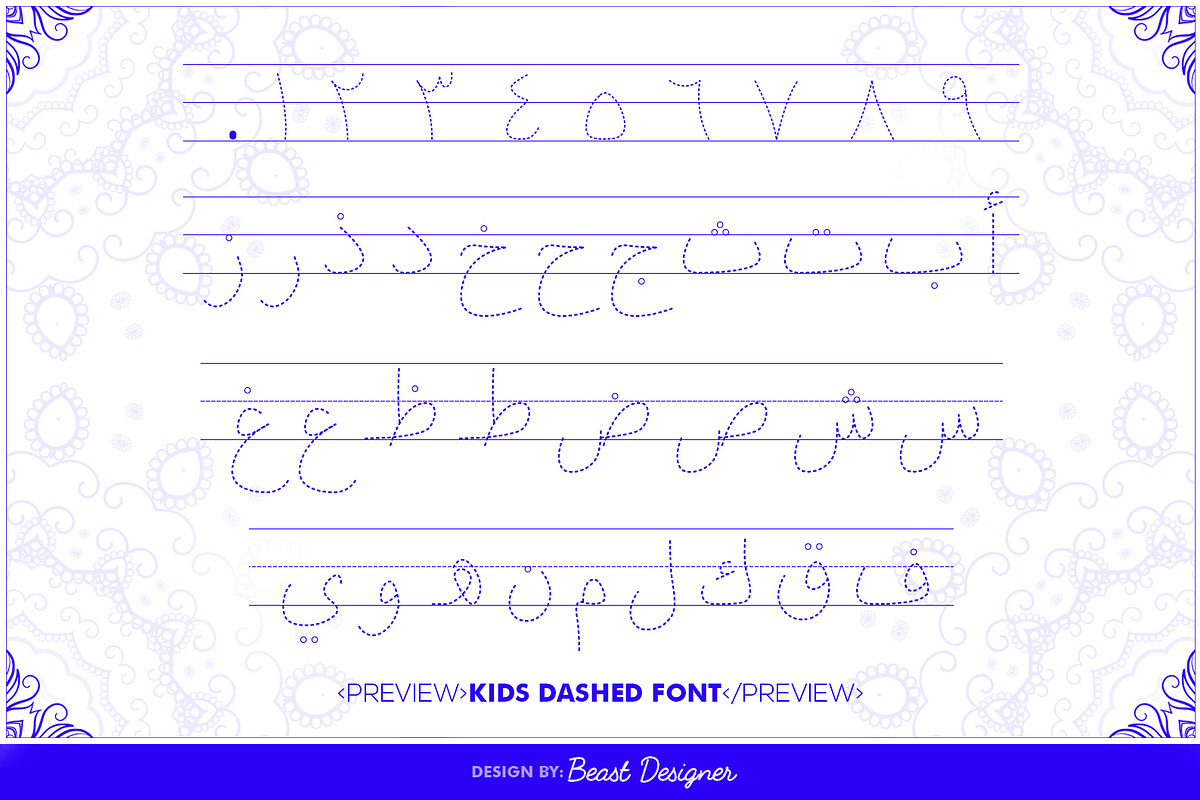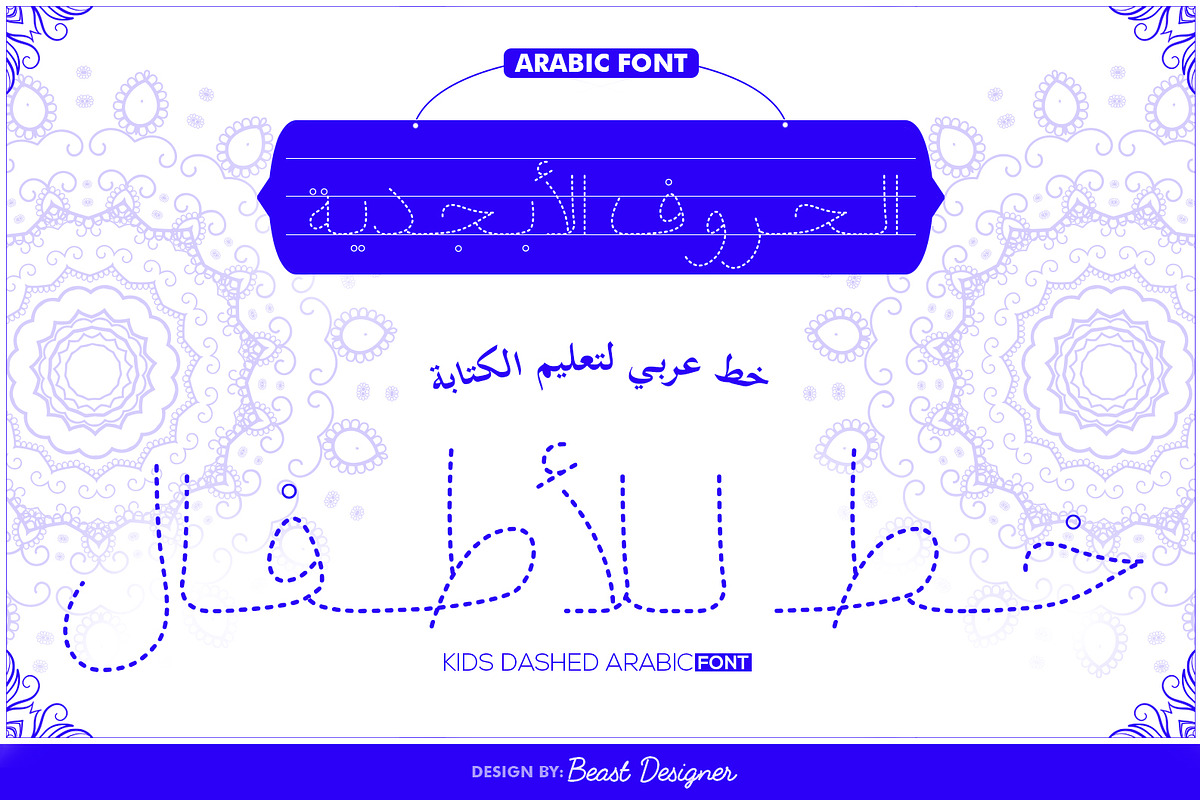
Kids Arabic Dashed
Kids Arabic is a distinctive display font characterized by its dashed lines. Specifically designed for children's letter tracing worksheets, it adds a playful touch to learning. Its unique style makes it versatile for various creative projects aimed at a younger audience, such as educational materials, children's book illustrations, or fun and engaging designs.